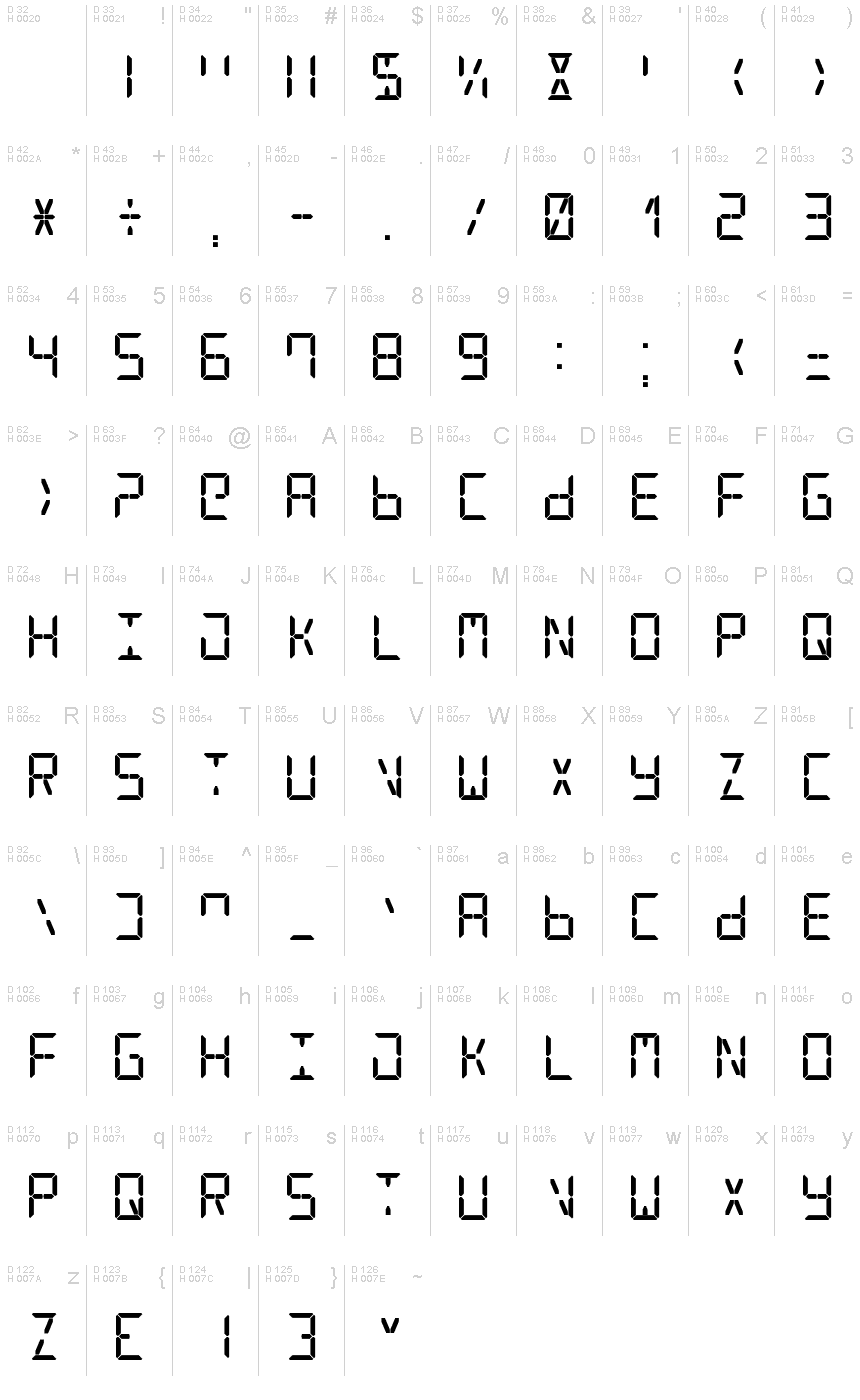
Digital Counter 7 by Style-7 is a free digital display font modeled closely on classic seven-segment readouts. Tall, open forms and broad segment gaps look spare and mechanical.
A scoreboard graphic is its clearest role, since the clipped joins and deliberate breaks immediately suggest timing, scores, and instrument readings. The same numeric-display character suits arcade interfaces, electronics packaging, and technology posters, where labels or figures can resemble part of a working readout.